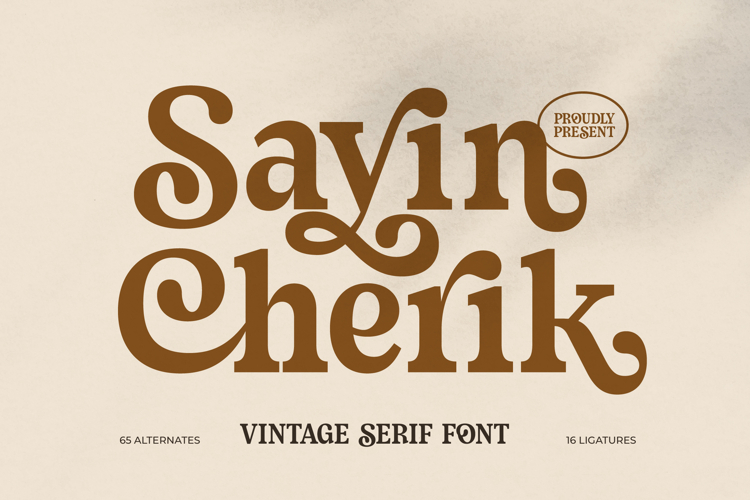
Sayin Cherik - Vintage Serif Font
Unleash the captivating allure of timeless design with Sayin Cherik - Vintage Serif Font. This exquisite typeface masterfully blends the rich heritage of vintage aesthetics with a contemporary flair, delivering an instantly recognizable and elegant visual statement. Its flowing, high-contrast strokes and beautifully crafted serifs evoke a sense of refined sophistication, perfect for projects demanding classic charm with modern appeal.
Elevate your creative vision with unparalleled typographic flexibility. Sayin Cherik - Vintage Serif Font goes beyond standard letterforms, featuring an impressive array of 65 alternates and 16 ligatures. These intricate details provide designers with ample opportunity for customization and expressive typography, allowing for truly unique and memorable compositions. This font is a true asset for crafting distinctive designs that truly stand out.
Extend your brand's reach effortlessly across the globe. With its extensive multilingual support, Sayin Cherik - Vintage Serif Font adapts seamlessly across global markets, making it incredibly versatile for international projects. This comprehensive language coverage ensures your message resonates clearly and beautifully, maintaining its distinctive character no matter the linguistic requirement, establishing it as a truly global typeface solution.